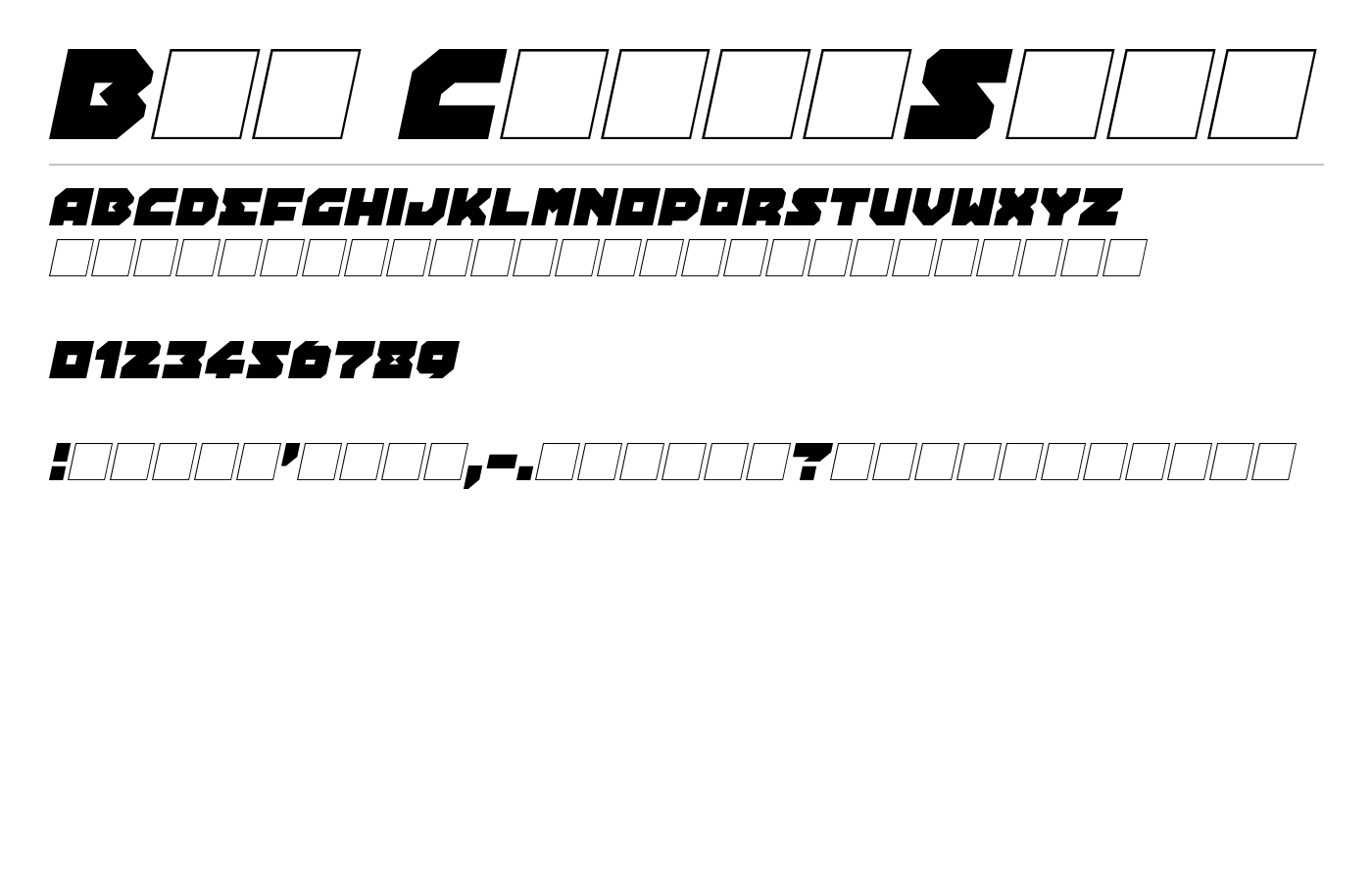
Bot CraftShop is a bold, angular sans serif font with a futuristic, tech-inspired style. Its heavy weight and sharp, geometric edges give it a strong, dynamic presence, making it ideal for eye-catching headlines, logos, and branding that aim to convey innovation and modernity. This all-caps font works best in designs that want to stand out with a cutting-edge, industrial vibe.
Bot CraftShop Font
About Bot CraftShop Font